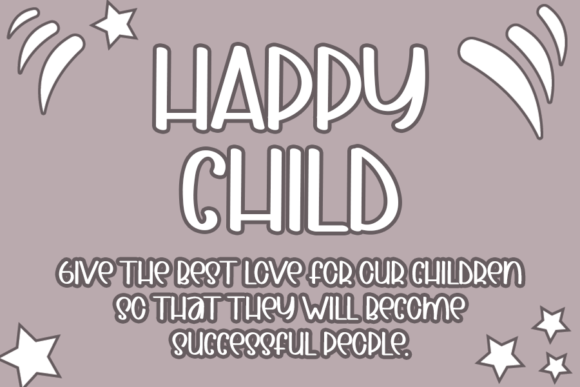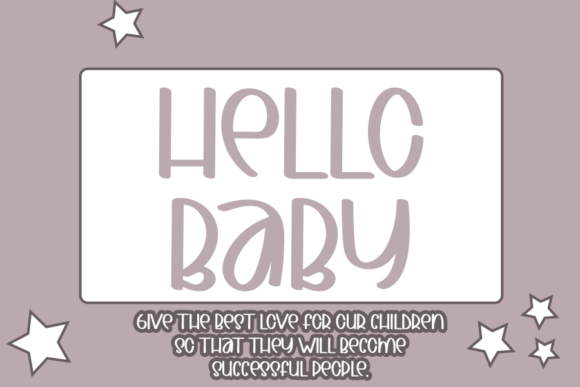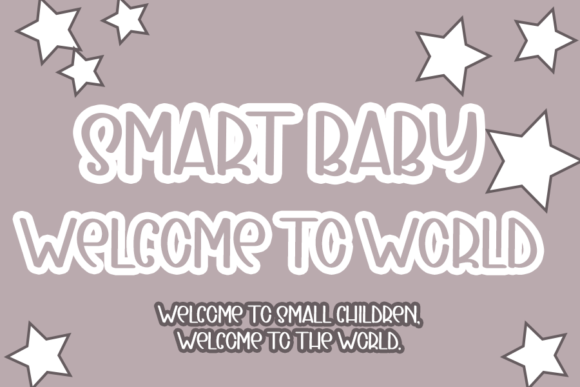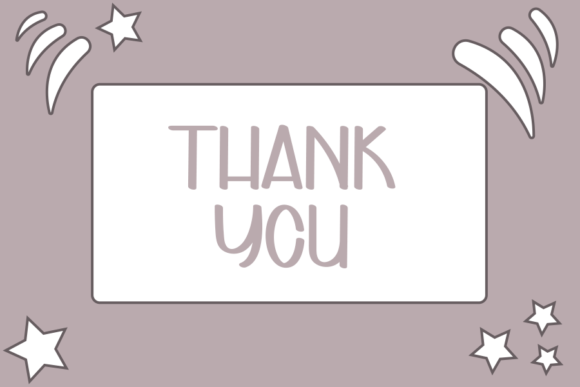
Baby Queen Font: Elevate Your Designs with a Bold and Stylish Display Font
In the world of typography, fonts play a crucial role in making or breaking a design. A perfect font can instantly elevate your creative project, making it stand out from the crowd. If you’re a designer, crafter, or simply someone who loves to dabble in creative projects, you’re in luck! Introducing Baby Queen, a bold and stylish display font that’s sure to add a touch of magic to your designs.
What is Baby Queen Font?
Baby Queen is a stunning display font that’s designed to make a statement. With its bold and stylish aesthetic, this font is perfect for adding a touch of sophistication and elegance to your creative projects. Whether you’re working on a logo, branding materials, posters, or social media graphics, Baby Queen is the perfect choice.
Key Features of Baby Queen Font
• Bold and Stylish: Baby Queen is a bold and stylish display font that’s designed to grab attention.
• Versatile: This font is perfect for a wide range of creative projects, from logos and branding materials to posters and social media graphics.
• Elegant: With its sleek and sophisticated design, Baby Queen adds a touch of elegance to any project.
• Easy to Read: Despite its bold design, Baby Queen is easy to read, making it perfect for headlines and titles.
How to Use Baby Queen Font in Your Designs
Adding Baby Queen to your designs is easy! Here are a few ways you can use this beautiful display font:
• Logos and Branding: Use Baby Queen as a bold and stylish font for your logo or branding materials.
• Posters and Flyers: Add Baby Queen to your posters and flyers to grab attention and make a statement.
• Social Media Graphics: Use Baby Queen to create eye-catching social media graphics that stand out from the crowd.
• Invitations and Cards: Add a touch of elegance to your invitations and cards with Baby Queen.
Why Choose Baby Queen Font?
With so many fonts to choose from, why should you choose Baby Queen? Here are a few reasons:
• Unique Design: Baby Queen has a unique and stylish design that’s sure to make your projects stand out.
• High-Quality: This font is designed with high-quality and clarity in mind, making it perfect for both print and digital projects.
Tips for Using Baby Queen Font Effectively
Here are a few tips for using Baby Queen effectively in your designs:
• Use it Sparingly: Because Baby Queen is a bold font, it’s best to use it sparingly to avoid overwhelming your design.
• Pair it with Other Fonts: Experiment with pairing Baby Queen with other fonts to create a unique and stylish look.
• Experiment with Colors: Try out different colors and textures to see how they work with Baby Queen.
In conclusion, Baby Queen is a bold and stylish display font that’s perfect for adding a touch of elegance and sophistication to your creative projects. With its unique design, high-quality, and ease of use, Baby Queen is a great choice for designers, crafters, and anyone who loves to dabble in creative projects. So why wait? Add Baby Queen to your font collection today and start creating stunning designs that stand out from the crowd!